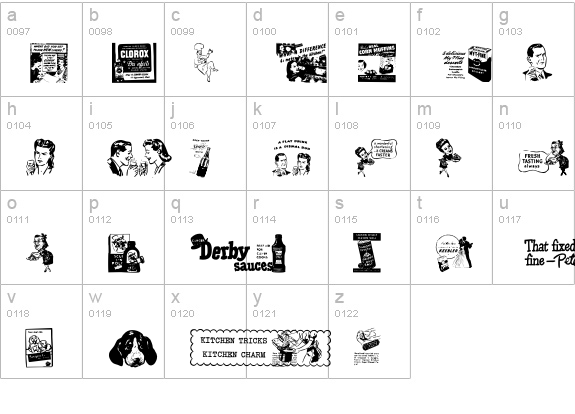
Old Time Ad Dings Two Font Details
Old Time Ad Dings Two font is a charming and versatile typeface that harks back to the golden age of advertising. With its vintage-inspired design and decorative elements, this font is perfect for adding a retro touch to your projects. Whether you're creating posters, flyers, or social media graphics, Old Time Ad Dings Two font will give your designs a nostalgic and playful feel. The best part? Old Time Ad Dings Two font is completely free to download at FontsMarket.com. You can easily access this unique and eye-catching font to enhance your creative projects without any cost. Don't miss out on the opportunity to add a touch of old-school flair to your designs with Old Time Ad Dings Two font!